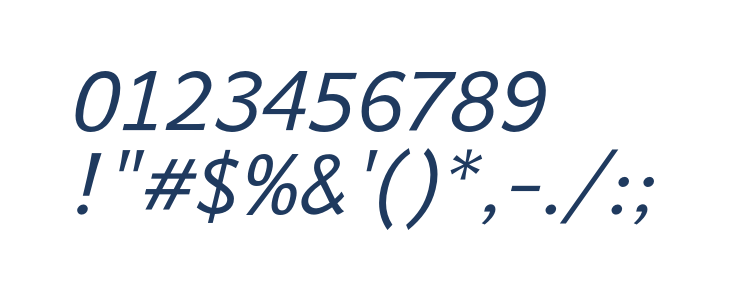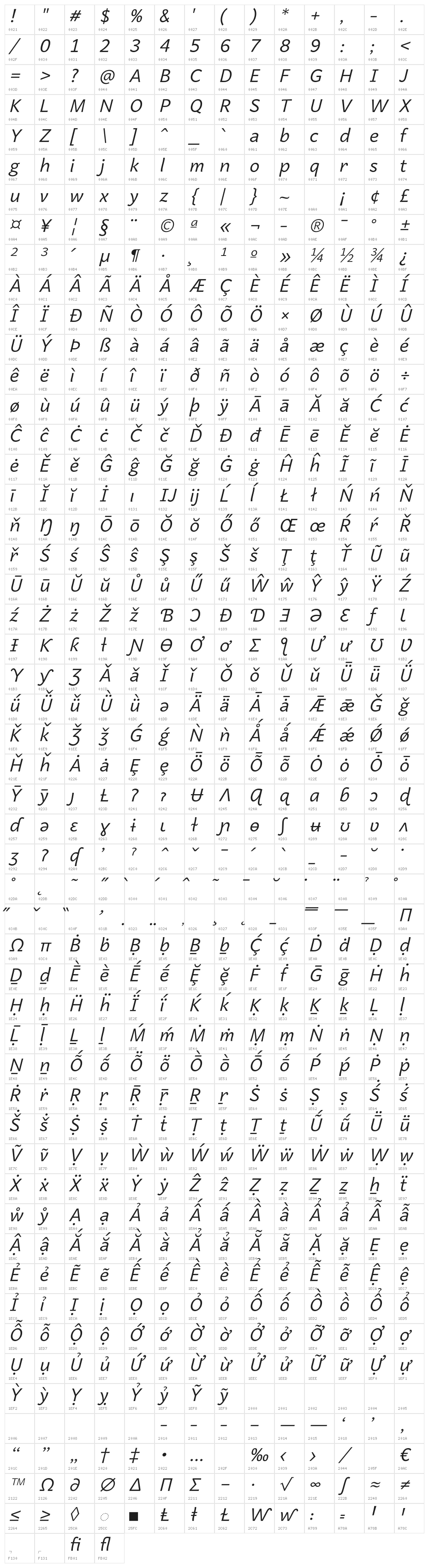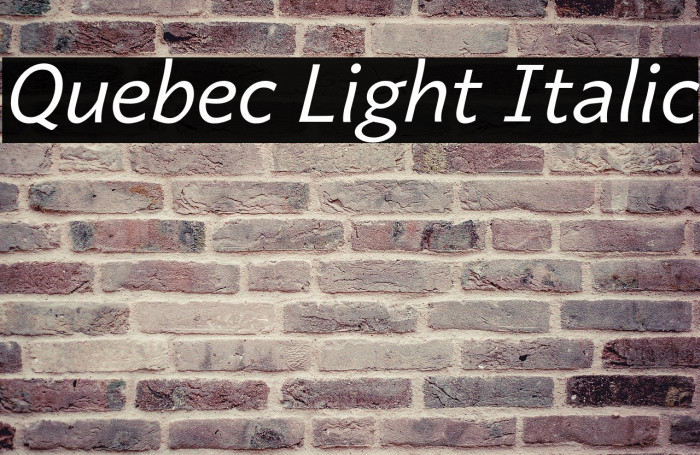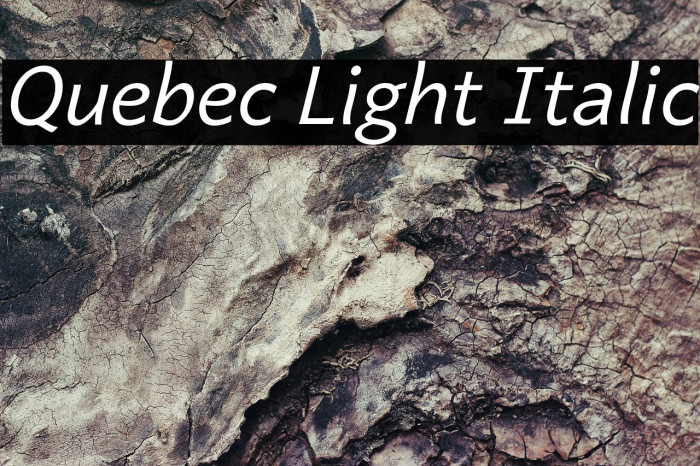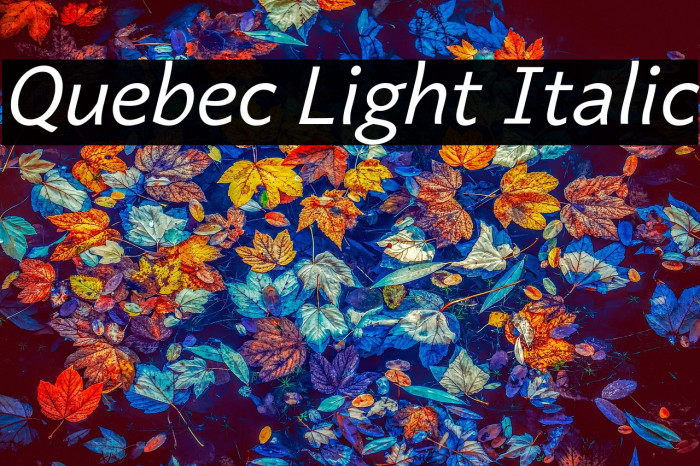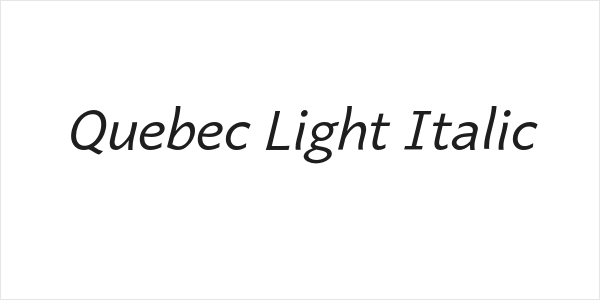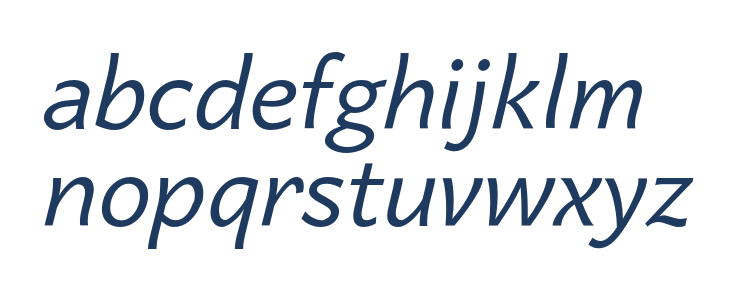
Quebec Light Italic Font
Quebec Light Italic Description
This font exhibits a sleek and elegant design, characterized by its light weight and italic style. The letters are slightly slanted, giving it a dynamic and fluid appearance. The strokes are consistent and smooth, with a moderate contrast that enhances readability while maintaining a sophisticated look. The font's overall aesthetic is modern and clean, making it suitable for a variety of applications. Its character spacing is normal, ensuring clarity and legibility across different sizes. The numerals and special characters are well-integrated, complementing the alphabetic characters seamlessly.
Proposed ProjectsIdeal for projects such as branding, editorial design, and digital interfaces where a touch of elegance and modernity is desired.